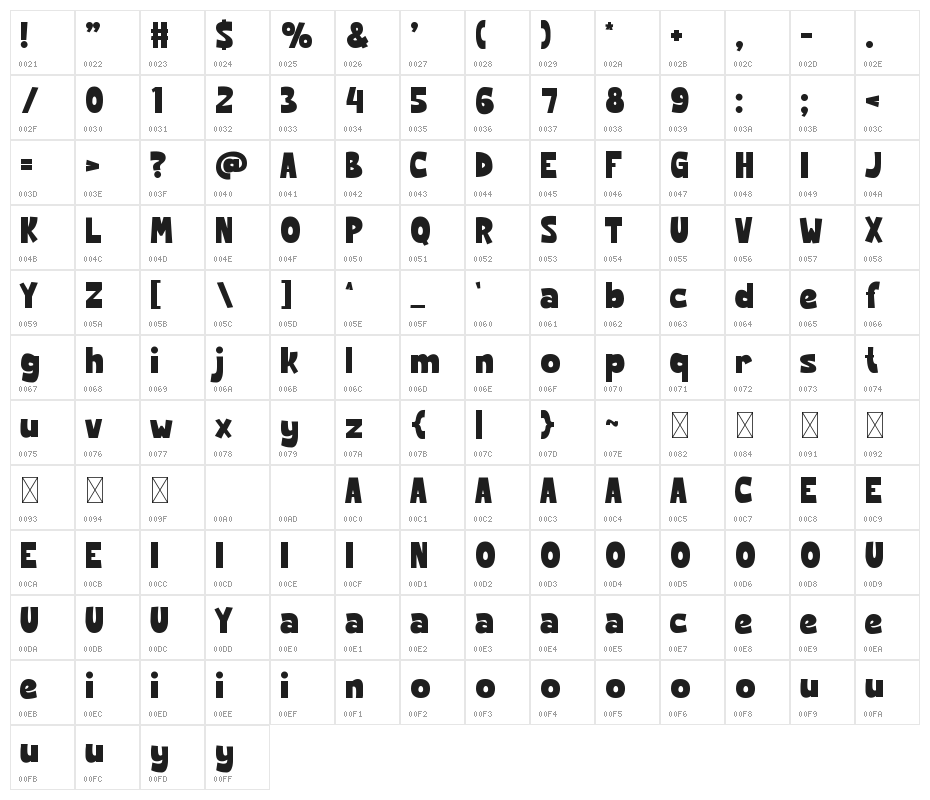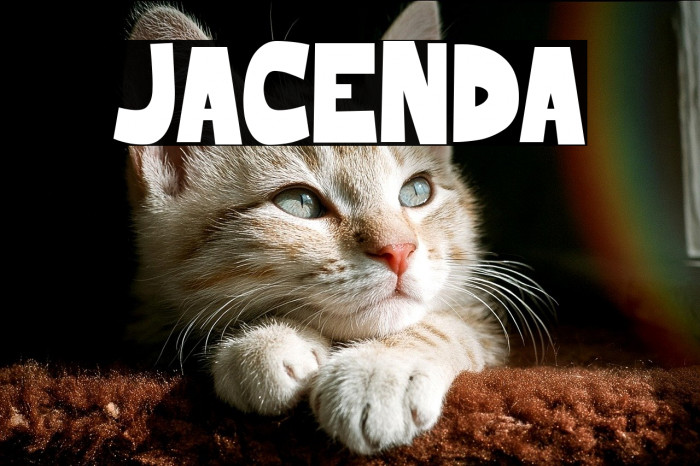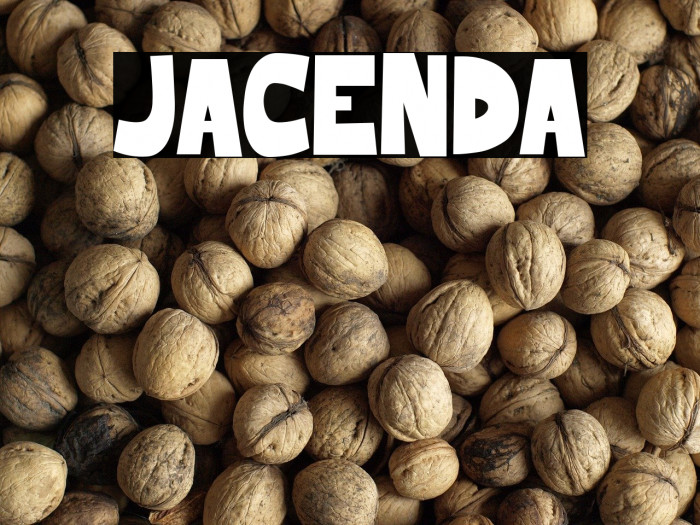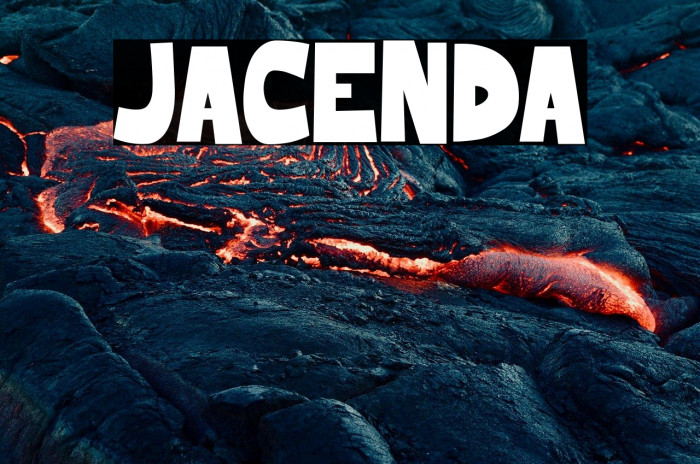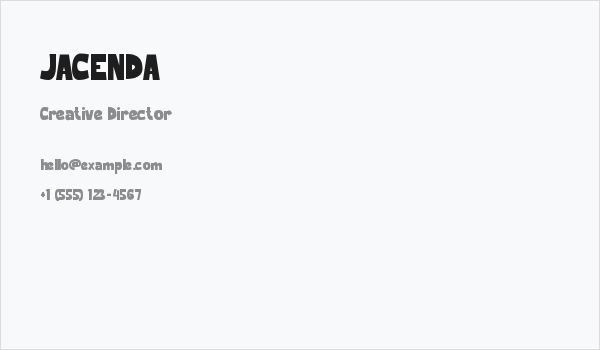
JACENDA Font
JACENDA Description
This font features a bold and playful design with thick, rounded strokes that give it a friendly and approachable appearance. The characters are slightly irregular, adding a whimsical touch that makes it stand out. The uppercase letters are robust and commanding, while the lowercase letters maintain a consistent style with a slightly softer edge. Numbers and special characters follow the same bold aesthetic, ensuring uniformity across all text. This font's unique style is perfect for projects that require a fun and engaging look.
| Overall Style | Playful, Whimsical |
| Proposed Projects | Ideal for children's books, playful branding, posters, and creative advertisements. |